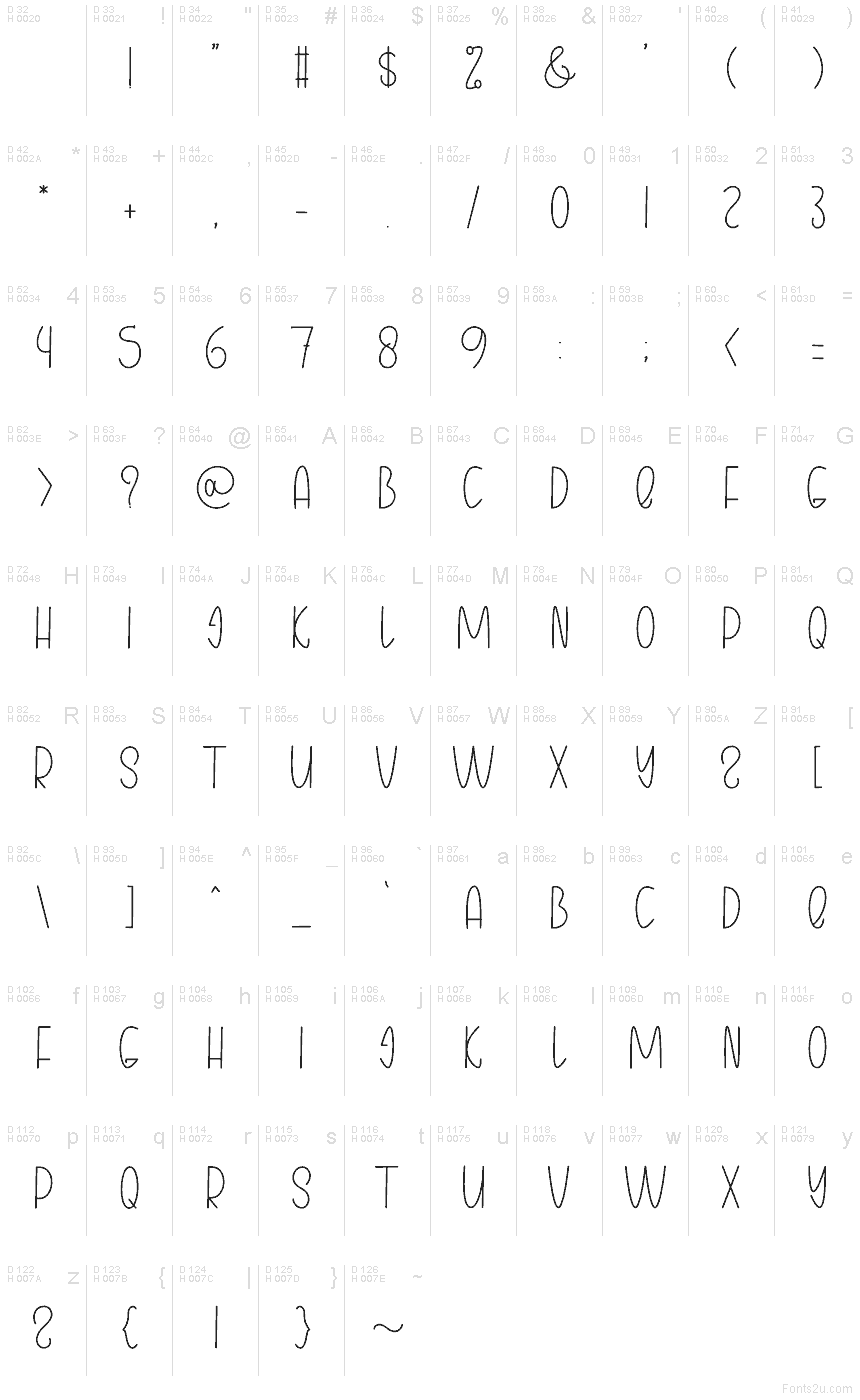
Winter Farmhouse
Winter Farmhouse, crafted by the imaginative minds at PiPi Creative, presents an exquisite blend of rustic charm and modern elegance. This handwritten font boasts an extra-light weight paired with an extra-condensed width that exudes a sense of warmth and personal touch. Its delicate strokes and thoughtful design lend it a whimsical yet sophisticated air, making it perfect for designs that aim to convey intimacy with a refined flair.
With its unique style, Winter Farmhouse stands out in applications where a personal, homegrown aesthetic is desired. From bespoke invitations to branding for artisanal products, this font has the potential to infuse your creative projects with a cozy yet chic atmosphere. Whether you're crafting heartfelt greeting cards or looking to add character to editorial layouts, Winter Farmhouse's airy presence and distinct appeal make it versatile across various mediums.
Embrace the artisanal essence of Winter Farmhouse for your next project and let its understated beauty elevate your design narrative.